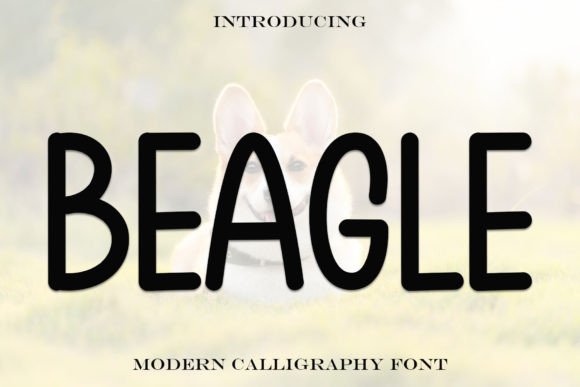
Beagle Font: A Timeless and Elegant Handwritten Font
The Beagle Font is a stunning handwritten font that has captured the hearts of designers and typography enthusiasts alike. Described as a neat and beautiful font with an elegant touch, Beagle is perfect for adding a touch of sophistication to your favorite projects. In this article, we’ll dive into the world of Beagle Font, exploring its unique features, and what makes it a must-have for any designer looking to create spectacular designs.
The Story Behind Beagle Font
What Makes Beagle Font So Special?
So, what sets Beagle Font apart from other fonts? Here are a few key features that make it a standout:
- Elegant Touch: Beagle Font boasts an elegant touch that adds a level of sophistication to any design. Its smooth lines and curves create a beautiful visual flow that’s perfect for projects that require a touch of luxury.
- Distinct Style: Beagle Font has an incredibly distinct style that’s both timeless and versatile. Whether you’re designing a logo, a website, or a marketing material, Beagle Font is sure to make your project stand out.
- Handwritten Feel: Despite its elegant touch, Beagle Font still maintains a handwritten feel that’s perfect for projects that require a personal touch. Its subtle imperfections and variations in line width create a sense of authenticity that’s hard to replicate with digital fonts.
Use Cases for Beagle Font
Beagle Font is an incredibly versatile font that can be used in a wide range of projects. Here are a few examples:
- Logo Design: Beagle Font is perfect for creating logos that require a touch of elegance and sophistication. Its unique style and handwritten feel make it an excellent choice for brands that want to stand out.
- Web Design: Beagle Font can be used to create stunning website designs that are both visually appealing and functional. Its smooth lines and curves make it perfect for headings, titles, and other design elements.
- Marketing Materials: Beagle Font is an excellent choice for marketing materials such as brochures, flyers, and posters. Its elegant touch and distinct style make it perfect for creating eye-catching designs that grab attention.
Tips for Using Beagle Font
Here are a few tips for using Beagle Font in your designs:
- Pair it with Other Fonts: Beagle Font can be paired with other fonts to create a unique and visually appealing design. Try pairing it with a clean sans-serif font for a striking contrast.
- Experiment with Colors: Beagle Font looks stunning in a wide range of colors. Experiment with different colors to find the perfect combination that works for your design.
- Pay Attention to Line Spacing: Beagle Font has a flowing, handwritten feel that’s perfect for creating beautiful text. Pay attention to line spacing to ensure that your text flows smoothly.
In conclusion, Beagle Font is a stunning handwritten font that’s perfect for designers looking to add a touch of elegance and sophistication to their projects. Its unique features, including its elegant touch, distinct style, and handwritten feel, make it a standout in the world of typography. Whether you’re designing a logo, a website, or a marketing material, Beagle Font is sure to make your project stand out. So why not give it a try and see the difference it can make?
- What is Beagle Font? Beagle Font is a handwritten font described by an elegant touch, perfect for adding a touch of sophistication to your favorite projects.
- What makes Beagle Font so special? Beagle Font has an elegant touch, a distinct style, and a handwritten feel that make it a standout in the world of typography.